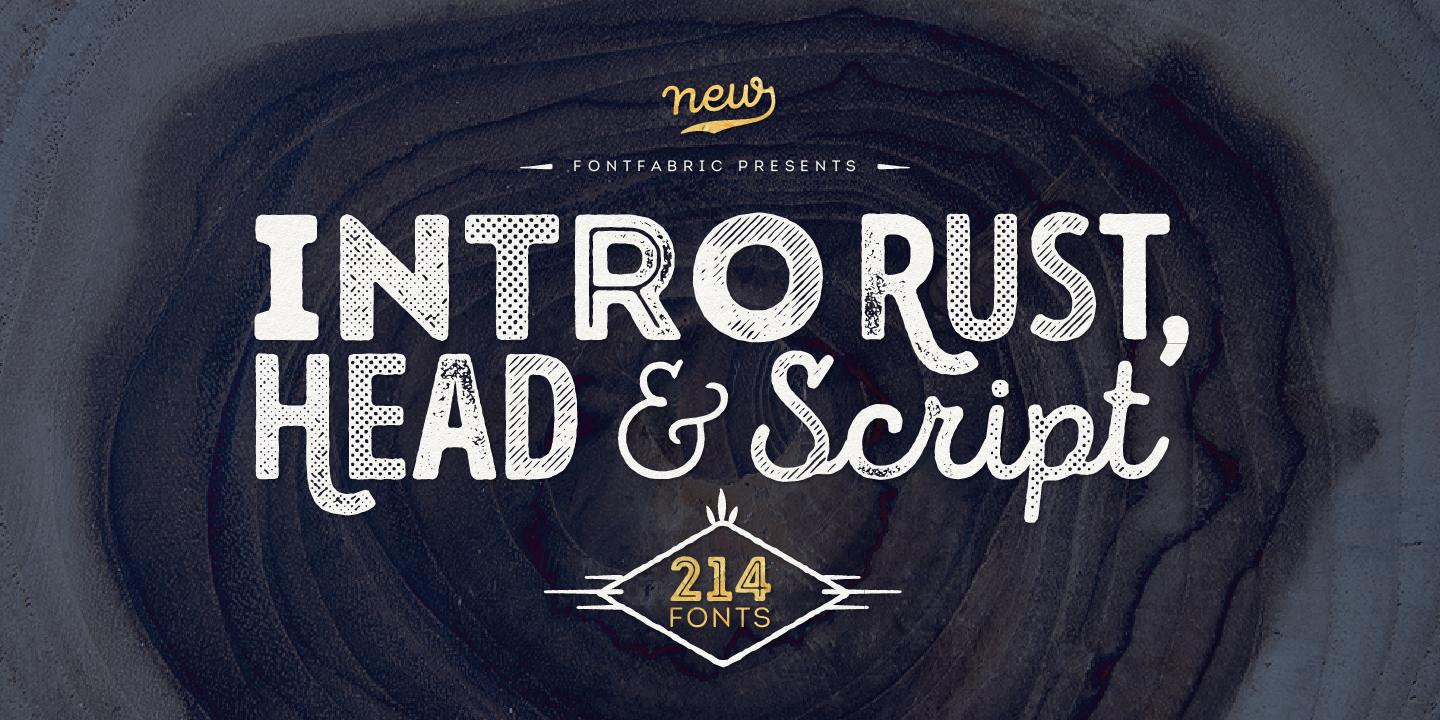
Intro Rust Font excels in various design applications including vintage branding, distressed poster designs, weathered signage projects, industrial logos, rustic packaging materials, retro advertising campaigns, aged book covers, and authentic vintage-themed publications. This weathered typeface adapts beautifully to both nostalgic digital platforms and aged print materials, making it perfect for designers seeking rustic charm and vintage authenticity in their visual communications.
Intro Rust Font generates excitement among creative professionals due to its weathered character and distressed styling that instantly conveys vintage authenticity and industrial heritage. The font's corroded letterforms and aged proportions create an immediate sense of history and time-worn character. Its rustic personality makes it particularly appealing for brands wanting to communicate authenticity, vintage quality, and weathered craftsmanship in their visual identity.
The Intro Rust Font family encompasses multiple weights and styles including Regular, Bold, Light, Distressed, and Grunge variations. Each family member maintains weathered design principles while offering distinct vintage characteristics. The Light weight provides subtle rust elegance for refined applications, while the Grunge version delivers heavily distressed impact for authentic vintage headlines and industrial brand statements.
Vintage designers frequently choose Intro Rust Font Free Download for projects requiring both weathered authenticity and brand distinction. This typeface demonstrates exceptional effectiveness across creative industries including craft breweries, vintage fashion, industrial design, and heritage brands. Its rustic character allows organizations to communicate aged authenticity while maintaining excellent readability and weathered visual appeal that captures the essence of time-worn craftsmanship and industrial heritage.